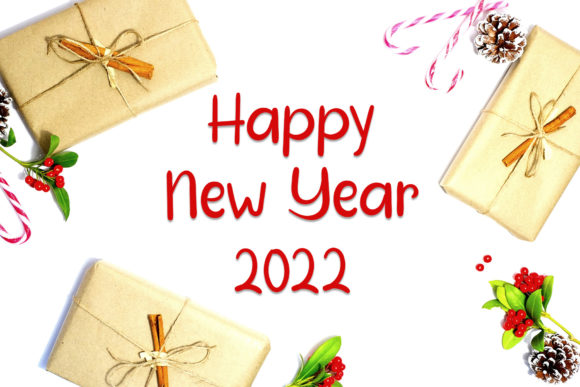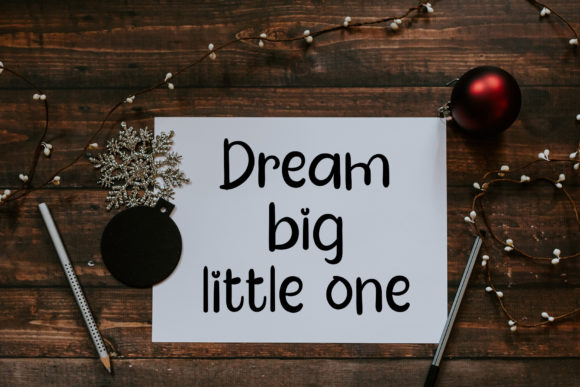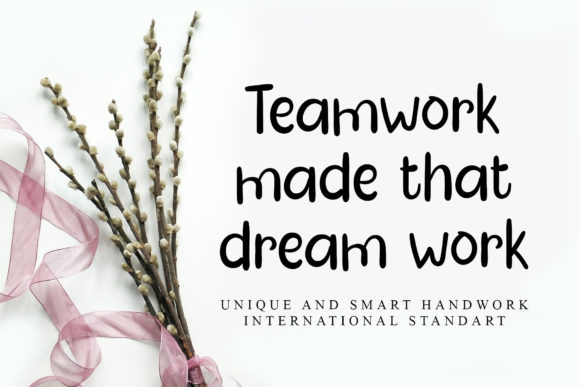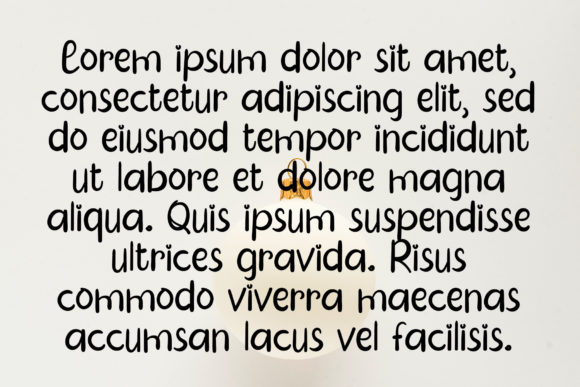
The Elusive Perfect Font: How Butterfly Wrench Stole My Heart
I still remember the frustration of working on a wedding invitation project, searching for that perfect handwritten font to give it a personal touch. My client wanted something elegant, yet playful; something that would make their special day stand out. I must have scrolled through hundreds of fonts, but none seemed quite right. That was until I stumbled upon the Butterfly Wrench font. ✨
An Honest Review: The Good and the Quirky
What I Love About Butterfly Wrench
• ✨ Elegant and unique design that’s perfect for special occasions
• ✅ Handwritten touch with a natural, hand-made feel
• 💕 Works beautifully on a variety of design materials, from wedding invitations to business cards
• 🎨 Highly versatile and can be used for both digital and print designs
While Butterfly Wrench is an amazing font, it’s not without its quirks. 🤔 For instance:
• ⚠️ Some letters may require manual kerning for optimal spacing
• ⚠️ May not be suitable for very small font sizes or body text
Exploring Alternatives: Similar Fonts to Butterfly Wrench
If you’re looking for something similar or just want to explore your options, here are a few fonts you might enjoy:
• Lobster – A more casual, yet still elegant script font perfect for seafood restaurants or coastal-themed designs.
• Pacifico – A beautiful, modern script font great for branding, especially for businesses that want to convey a sense of calm and professionalism.
• Great Vibes – A fun, handwritten font that’s perfect for more playful designs, like party invitations or kids’ event materials.
• Alex Brush – A lovely, elegant script font that works well for wedding invitations, greeting cards, and other formal designs.
The Story Behind Butterfly Wrench: Designer Inspiration
The Butterfly Wrench font was created with the intention of capturing the elegance and personal touch of handwritten text. While the actual designer and their story might be shrouded in mystery, it’s clear that the font was crafted with love and attention to detail. The varied baseline and natural, hand-made touch make it a standout in the world of digital typography.
Q: What makes Butterfly Wrench unique?
A: Its elegant design, handwritten touch, and varied baseline set it apart from more uniform fonts.
Q: Is Butterfly Wrench difficult to read?
A: While it’s elegant and unique, Butterfly Wrench is generally easy to read, making it suitable for a variety of design projects.